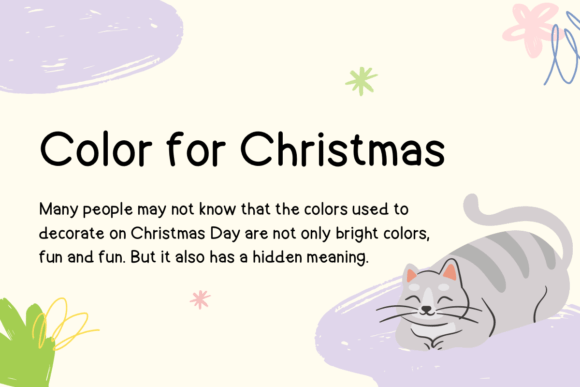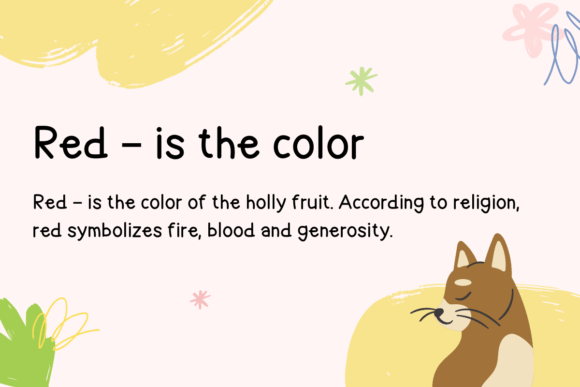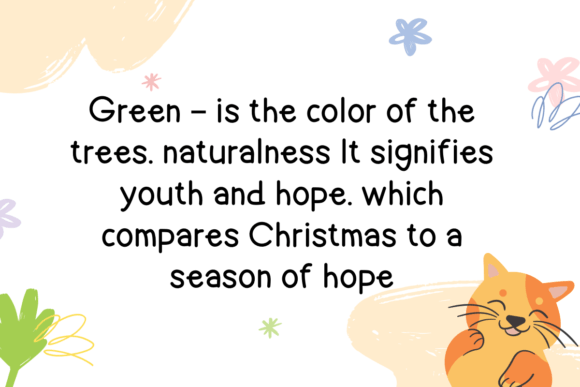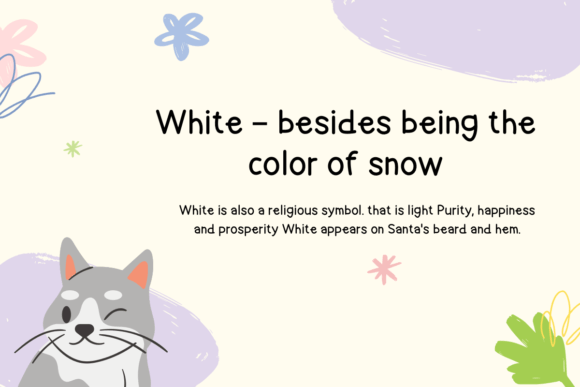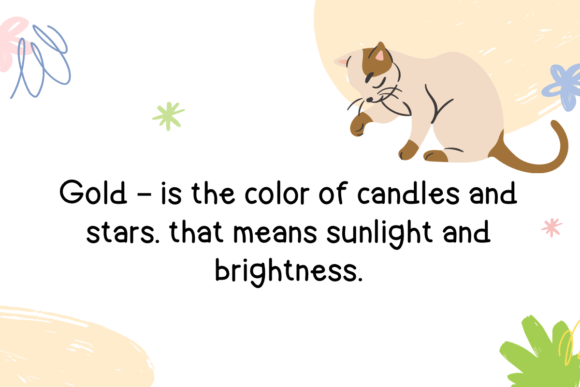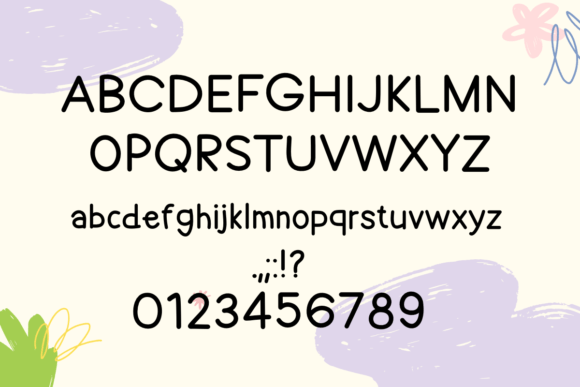
The Sweet Charm of Americano Font: A Designer’s Delight
I’ll never forget the time I was working on a wedding invitation project, and my client asked for a font that was “sweet, friendly, and elegant.” I scoured the internet, tried out dozens of fonts, but nothing seemed quite right. That was until I stumbled upon Americano Font. It was love at first sight! 💕
Americano is a beautiful, handwritten font that has become a staple in my design toolkit. Its sweet and friendly vibe makes it perfect for a wide range of projects, from wedding invitations and thank you cards to quotes, greeting cards, logos, and business cards.
• ✅ Unique, hand-drawn feel that’s perfect for creative projects
• ✅ Supports OpenType features, glyphs, and stylistic alternates
• ⚠️ May not be suitable for very formal or corporate designs
The Story Behind Americano Font
Americano Font was designed with love and care by a talented type designer. Although the exact story behind the font is unclear, it’s evident that the designer aimed to create a beautiful, approachable font that would bring joy to designers and readers alike.